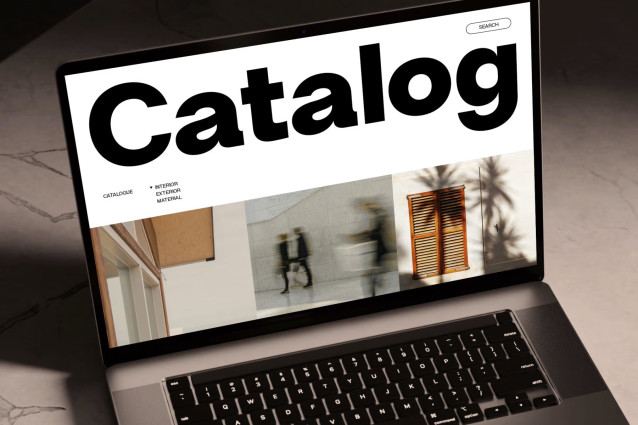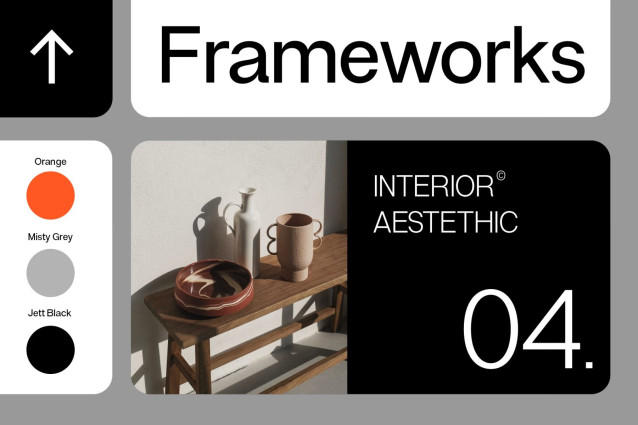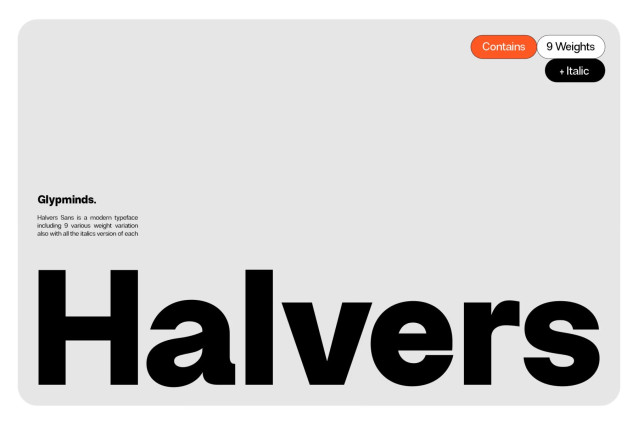
Halvers Font Family
Halvers – Modern Sans Serif Font Family
Elevate your next design project with Halvers, a clean and contemporary sans-serif typeface built for modern branding, editorial design, digital products, and professional communication.
Featuring 9 versatile weights with matching Italic styles, Halvers offers the flexibility needed for everything from bold headlines to refined body text. Its balanced proportions, geometric construction, and exceptional readability make it a dependable choice for designers, agencies, and creative professionals.
Whether you’re crafting a startup identity, designing a sleek website, creating marketing materials, or developing an editorial layout, Halvers provides the clarity and versatility your projects deserve.
From bold headlines to elegant interfaces, Halvers delivers a timeless modern look that adapts effortlessly across print and digital media